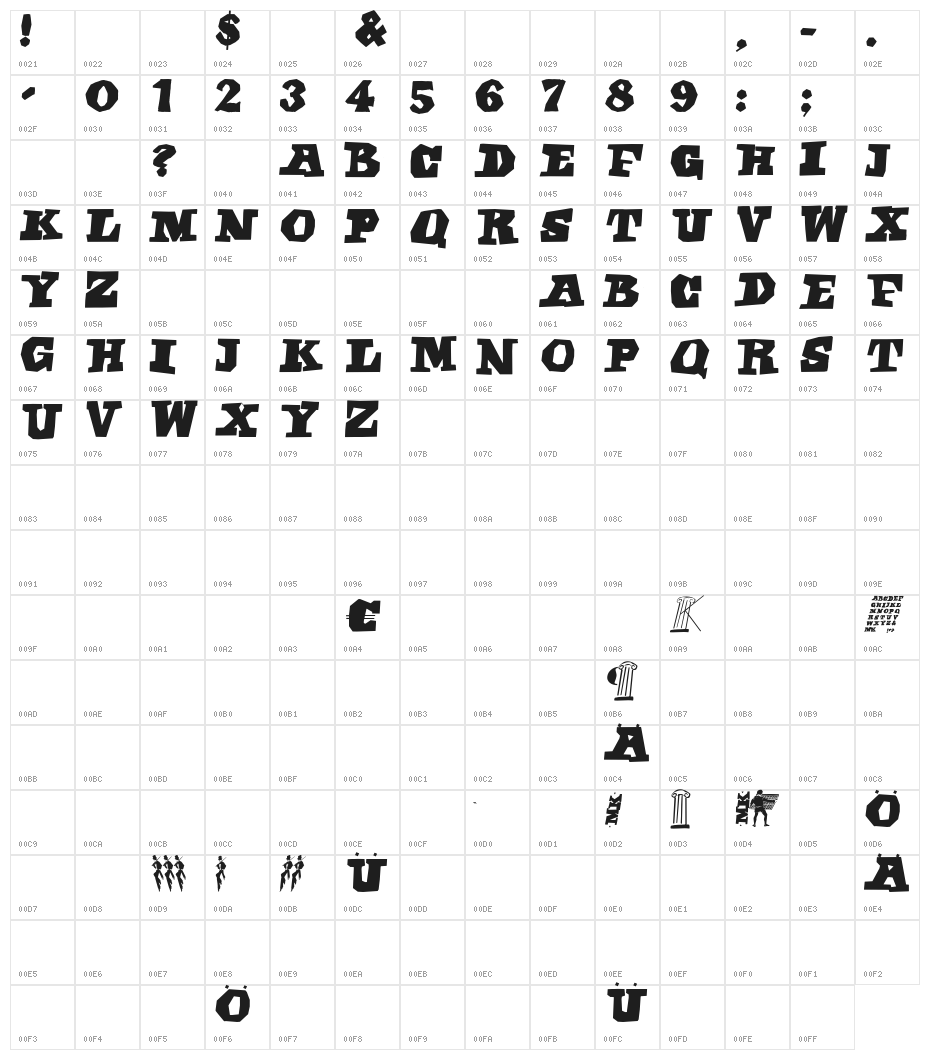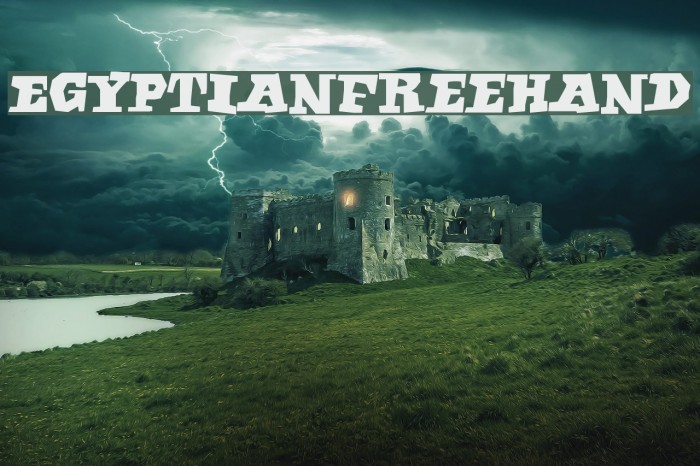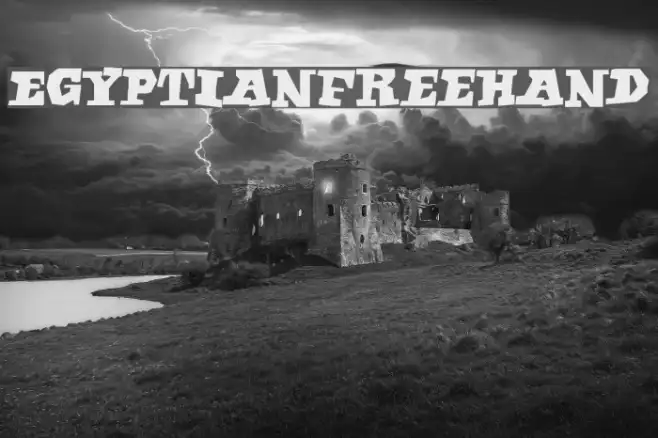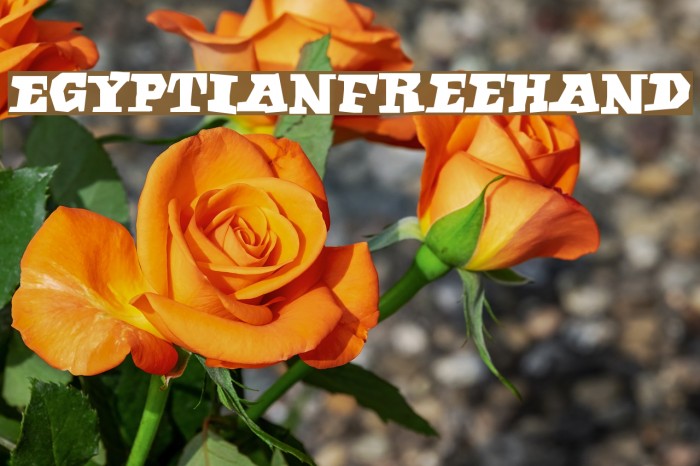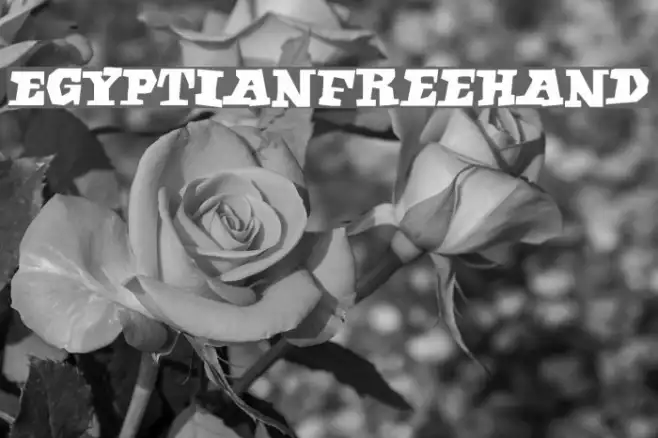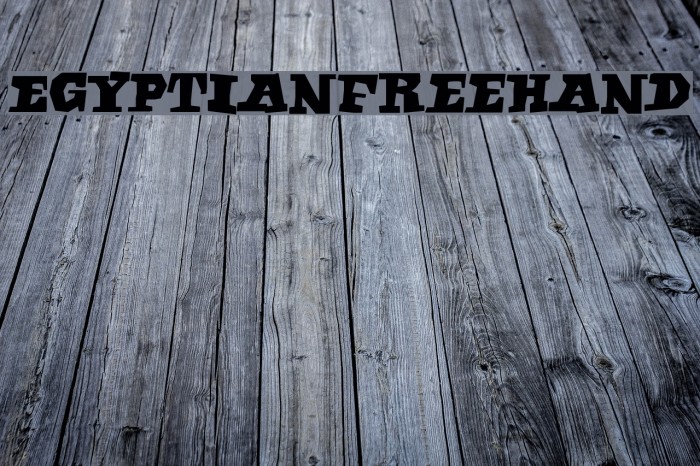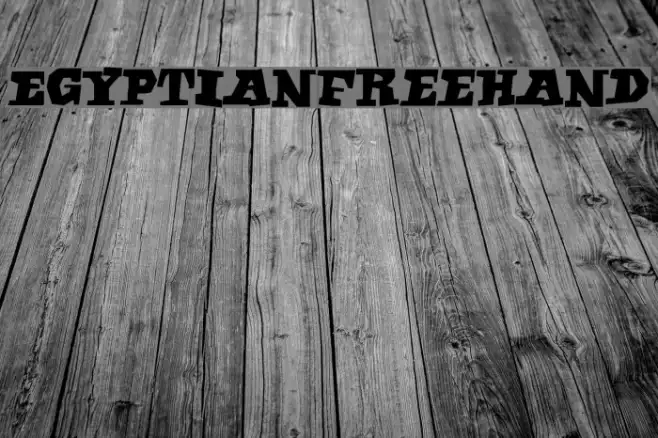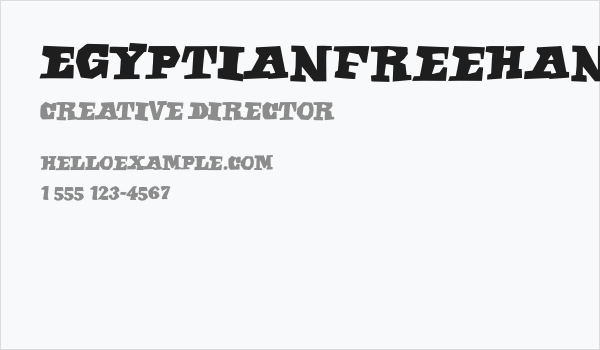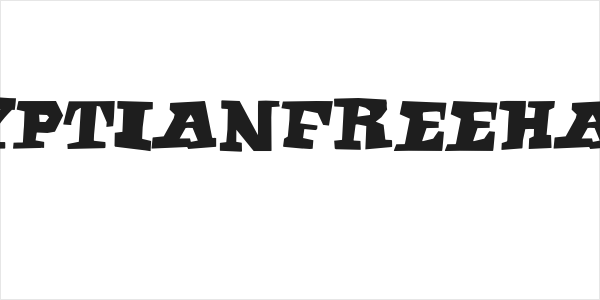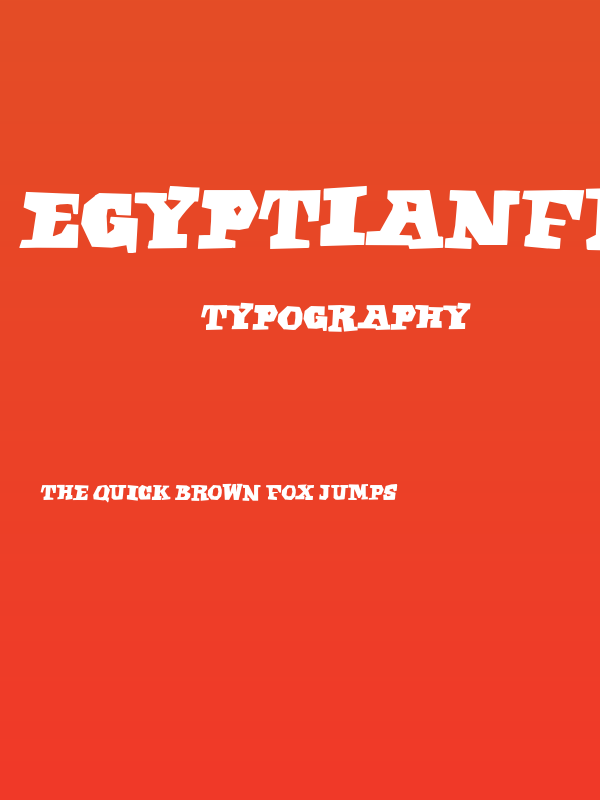
EgyptianFreehand Font
EgyptianFreehand Description
This font features a bold and dynamic style with a hand-drawn appearance, characterized by thick, uneven strokes that give it a rugged and artistic feel. The uppercase letters are prominent and slightly irregular, adding to the freehand aesthetic. The numbers and special characters maintain this boldness, ensuring consistency across the typeface. The overall design is reminiscent of a handcrafted sign, making it suitable for projects that require a touch of creativity and individuality.
| Proposed Projects | Ideal for posters, artistic projects, branding for creative businesses, and any design requiring a handcrafted look. |